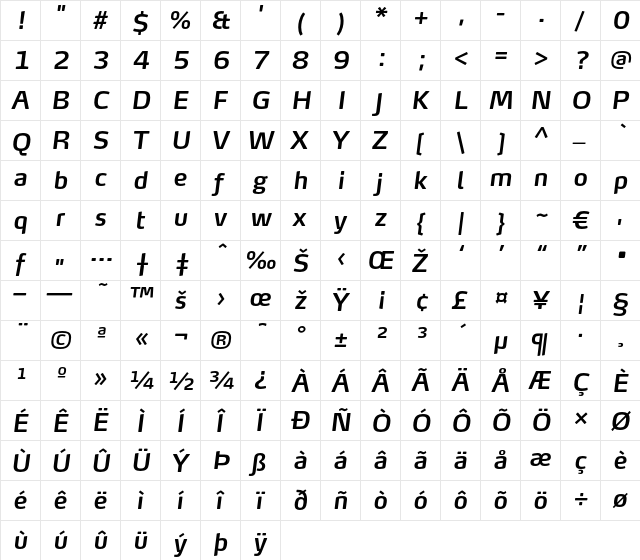
MaxTF-SemiBoldItalic Regular Font Preview
Design Context for MaxTF-SemiBoldItalic Typeface
MaxTF-SemiBoldItalic takes a measured approach to typography — its balanced proportions and neutral character make it a reliable workhorse for both digital and print work. The dynamic lean of this cut emphasises speed and emphasis in any layout. Its bold stroke weight gives it real presence on the page.
Pro Tip: Try MaxTF-SemiBoldItalic for annotation and caption copy alongside an upright companion — the contrast in angle creates a dynamic but ordered typographic system.